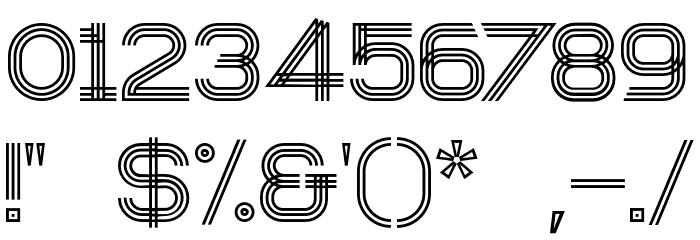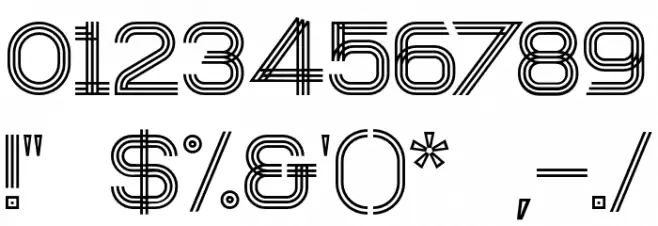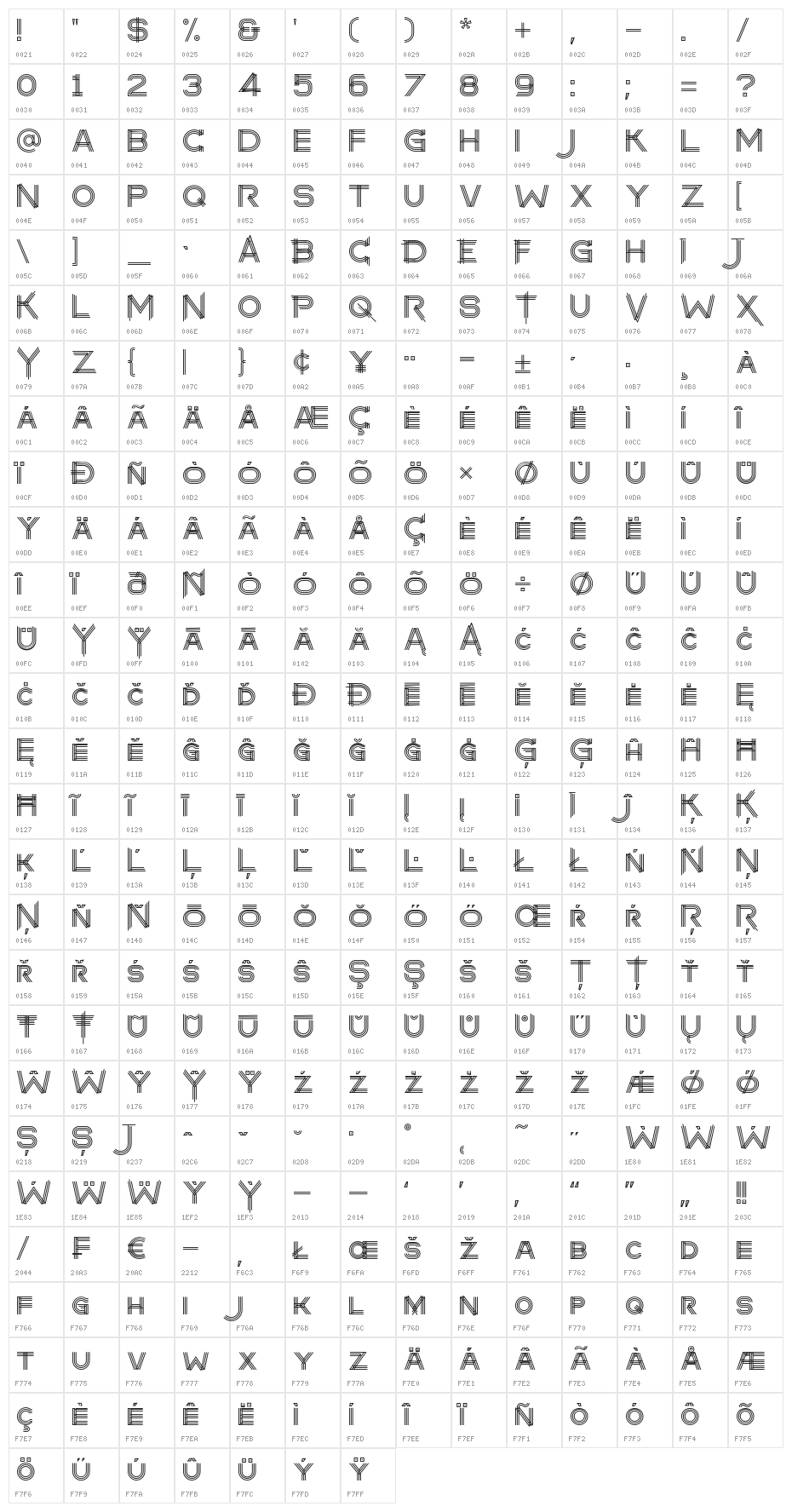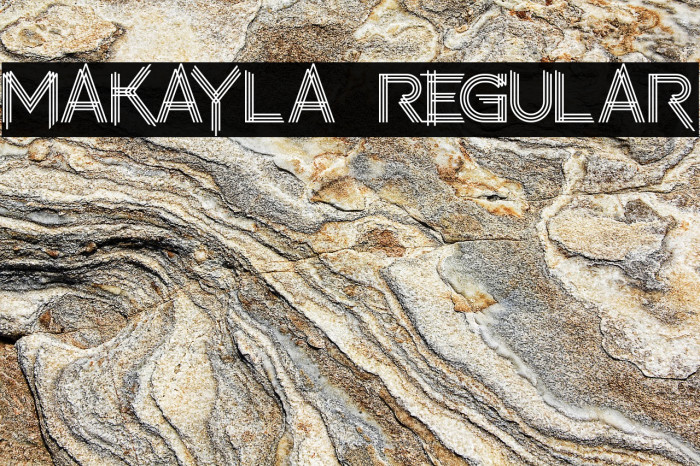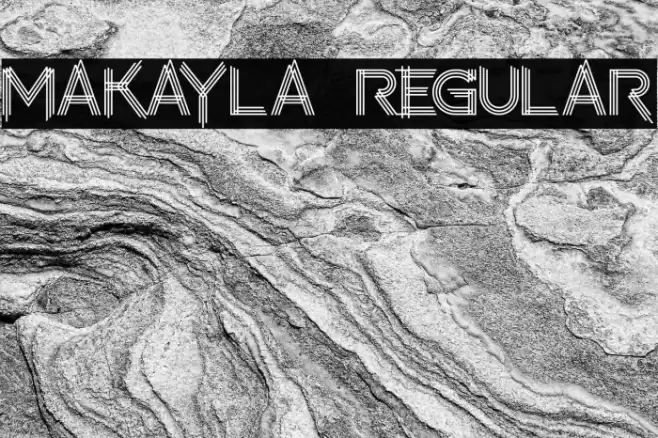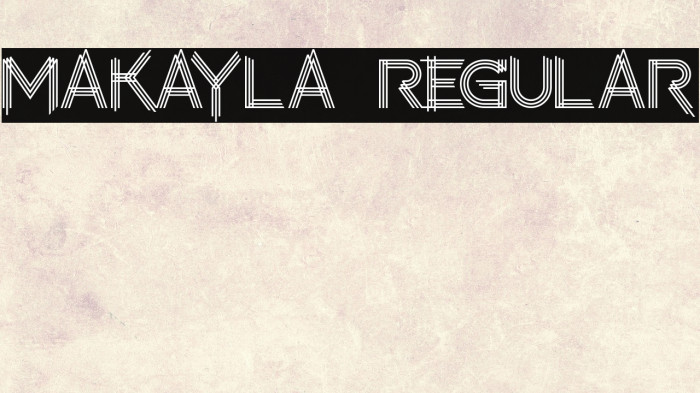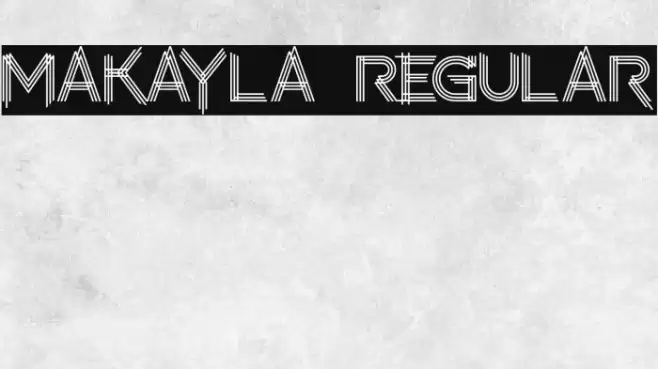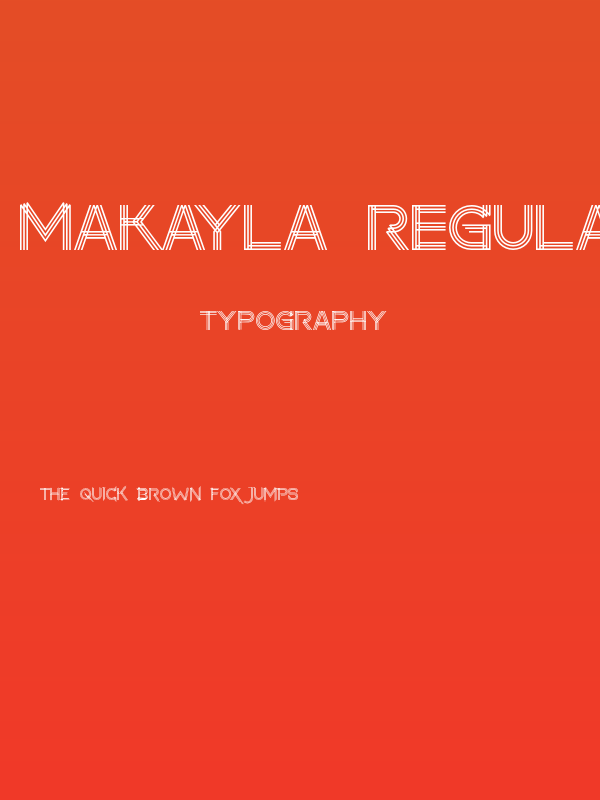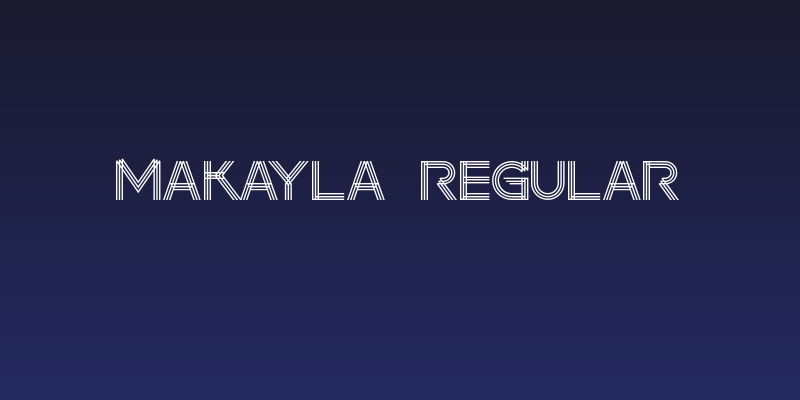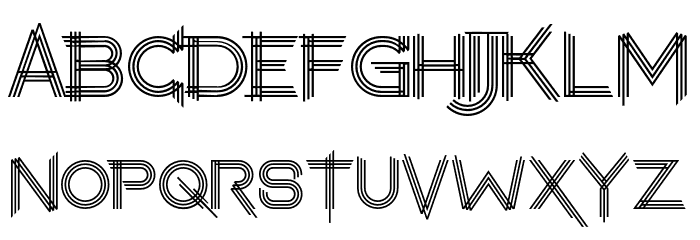
makayla Regular Font
This font features a unique, decorative style characterized by multiple parallel lines forming each character, giving it a layered and intricate appearance. The uppercase and lowercase letters, as well as numbers and special characters, maintain a consistent design with a geometric and modern flair. The lines are evenly spaced, creating a sense of rhythm and movement across the text. This font is visually striking and stands out due to its complex structure, making it suitable for creative and artistic projects.
| Proposed Projects | Ideal for posters, album covers, branding, and any project requiring a bold, artistic touch. |